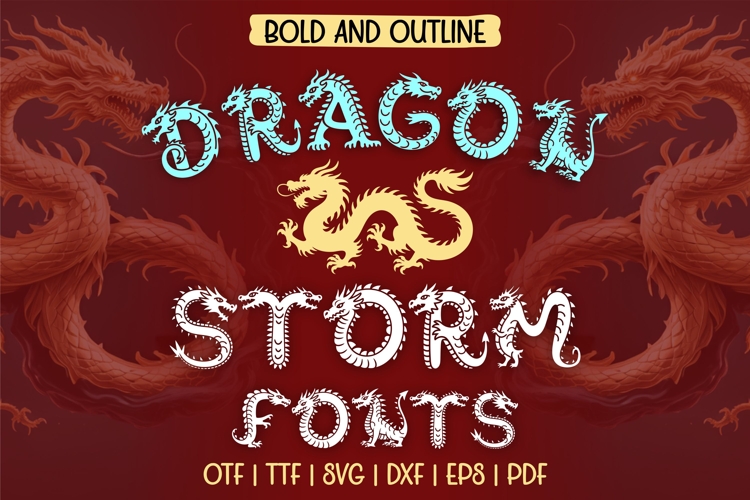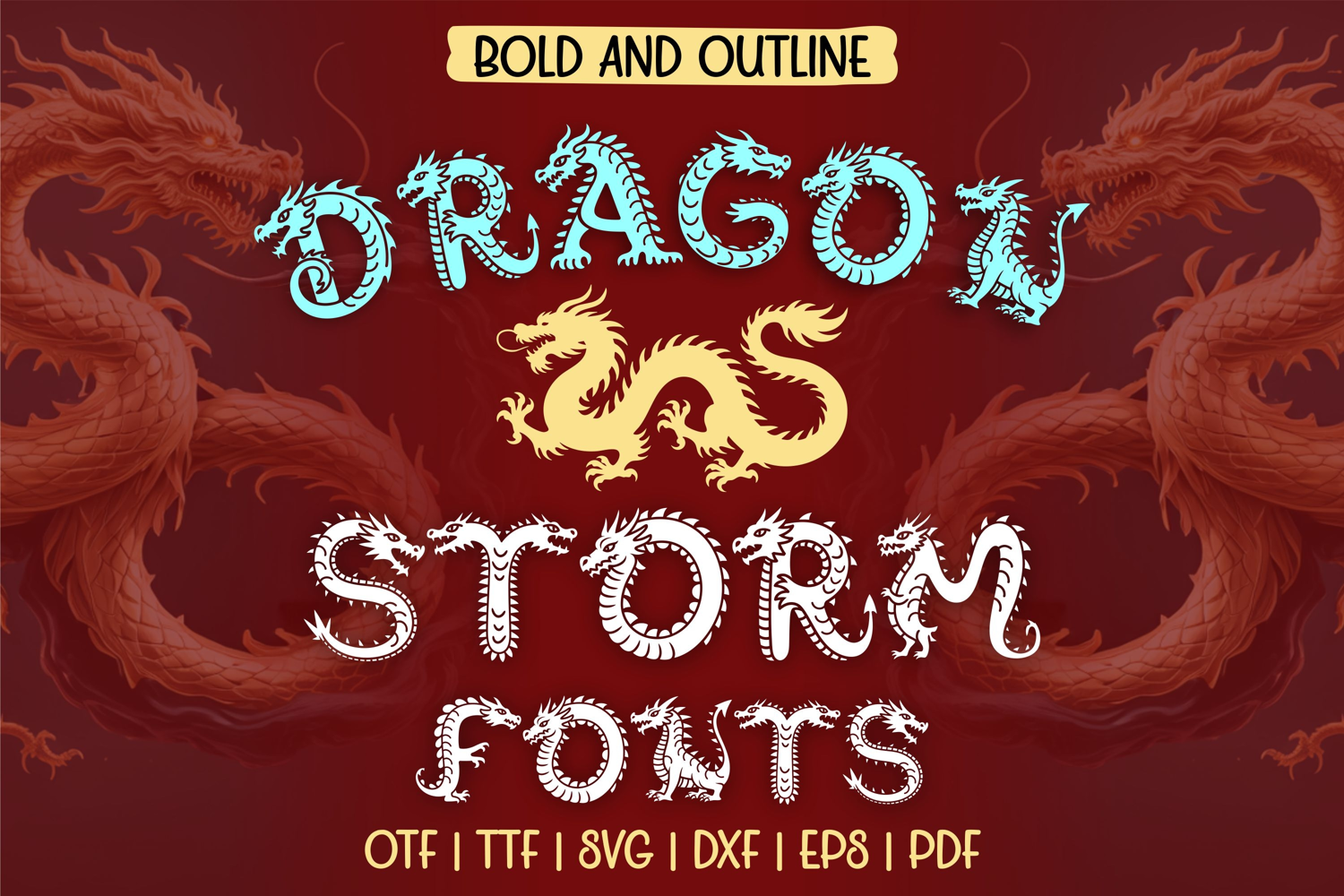
Dragon Storm Font SVG OTF TTF Fantasy Bold & Outline Letters
The Dragon Storm Font is a bold and fantasy-inspired typeface that captures the power, mystery, and elegance of dragons. Designed with unique dragon-themed details, this display font comes in two striking styles – Bold and Outline – giving you endless ways to add a mythical touch to your creative projects. Perfect for titles, posters, t-shirts, party invitations, and digital crafting, this dragon alphabet font transforms ordinary text into legendary artwork.
Crafted with fantasy lovers in mind, Dragon Storm is ideal for adventure posters, gaming graphics, dragon-themed books, nursery wall art, and striking logo designs. The bold version makes a strong statement with fire-breathing impact, while the outline version allows for layering, coloring, and blending to create custom effects. This font is also excellent for DIY craft projects, cutting machines, and digital design software.
With its dramatic strokes and fire-breathing silhouettes, the Dragon Storm Font adds a touch of magic and mystery to any project. Whether you’re designing for fantasy themes, bold displays, or creative artwork, this dragon alphabet font will make your designs unforgettable.